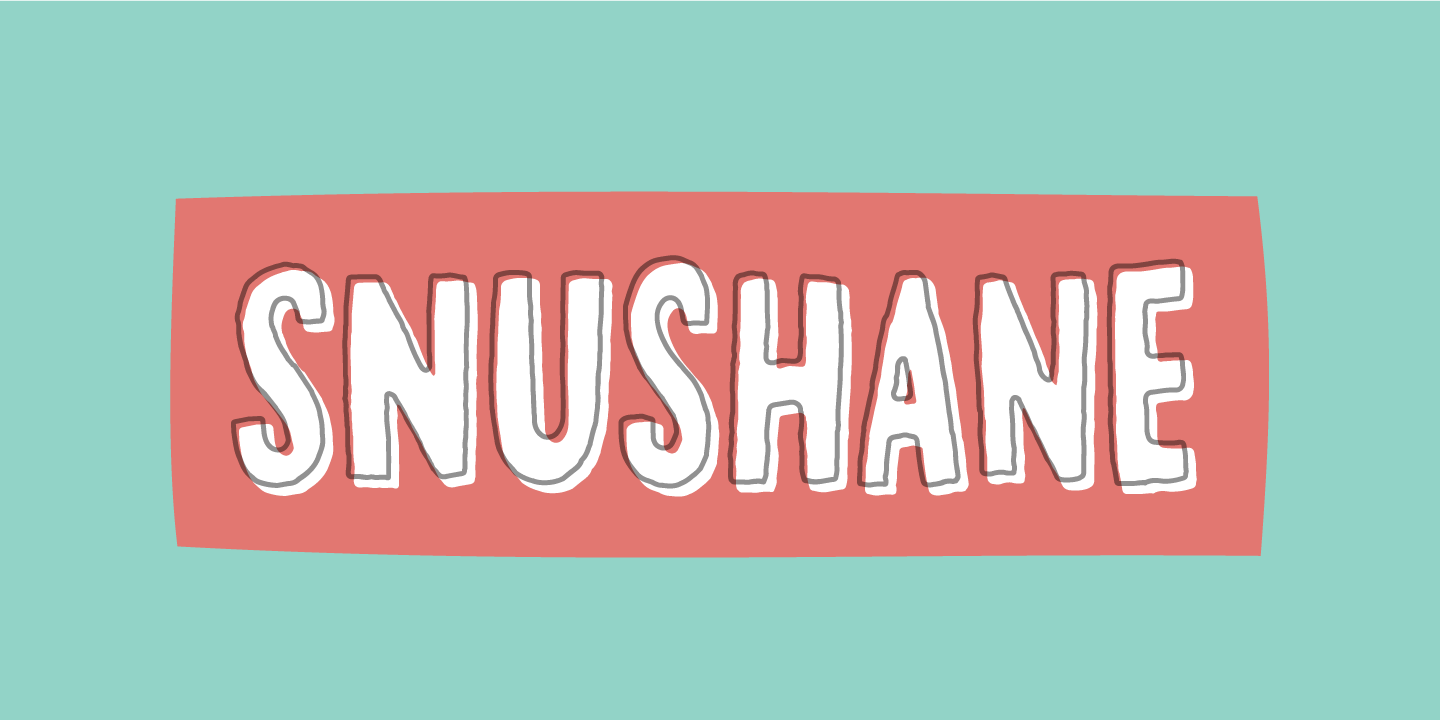
Snushane Font Free Download is a distinctive and stylish typeface that fuses contemporary design with artistic flair. Its sleek lines, creative curves, and unique character shapes make it an excellent choice for branding, packaging, editorial layouts, and display projects that demand individuality and modern sophistication.
Whether you’re crafting eye-catching headlines, bold logos, or expressive visual identities, Snushane Font Free Download delivers a perfect balance of creativity and readability. This font stands out especially well in fashion, lifestyle, and tech-forward design work — anywhere you want your typography to make a statement.